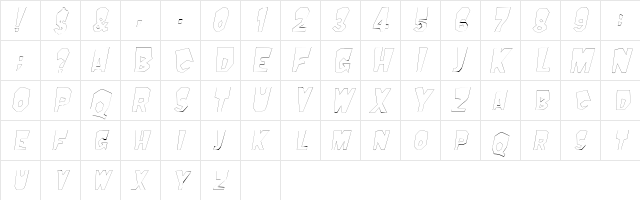
MondoOutline Oblique
Design Context for MondoOutline Typeface
MondoOutline brings ornamental detail and strong personality to headlines and identities, where visual impact matters more than quiet functionality. The slanted form adds forward momentum and visual energy.
Font Pairing: Pair with a clean neutral sans-serif for body copy to let MondoOutline's character lead without overwhelming the composition.
Pro Tip: Treat MondoOutline as the centrepiece of your typographic hierarchy. One strong heading set in a decorative face can carry an entire layout.